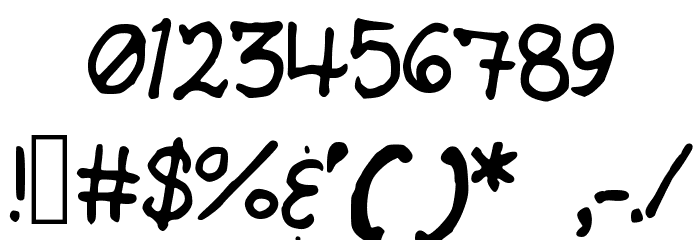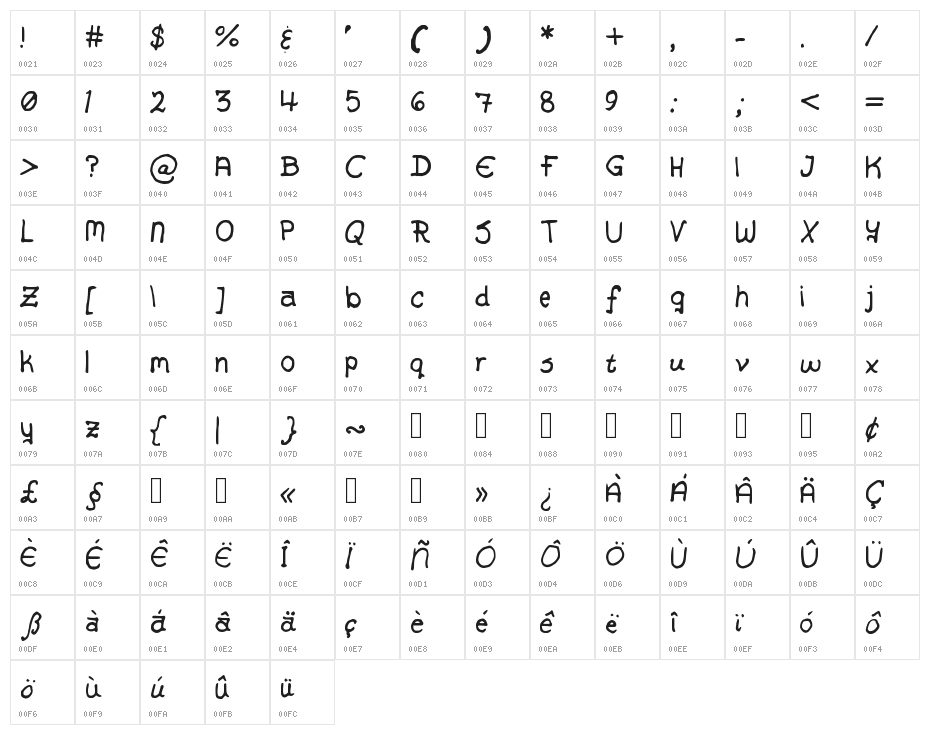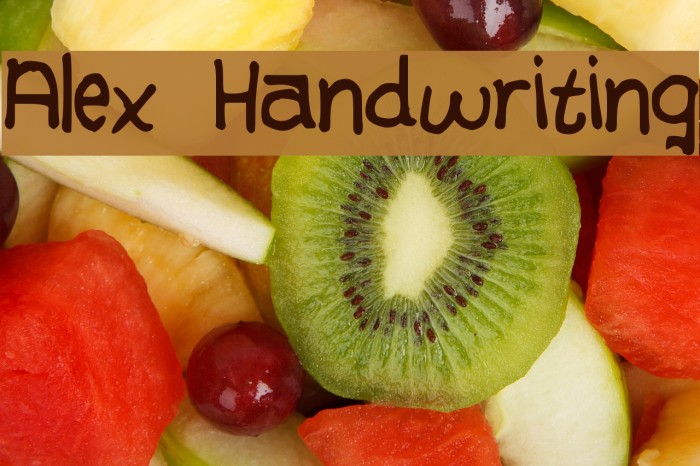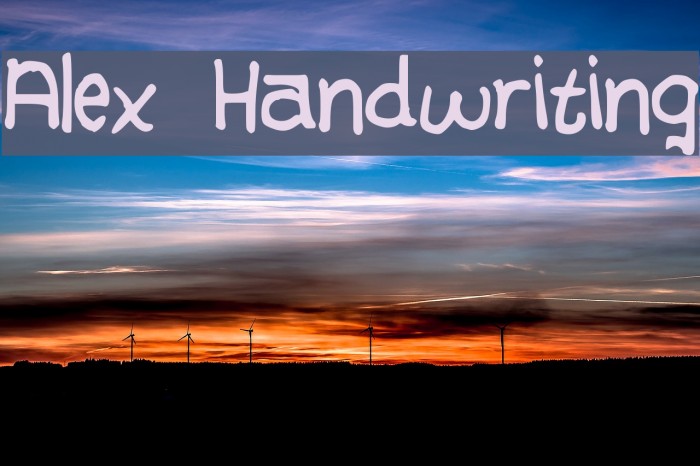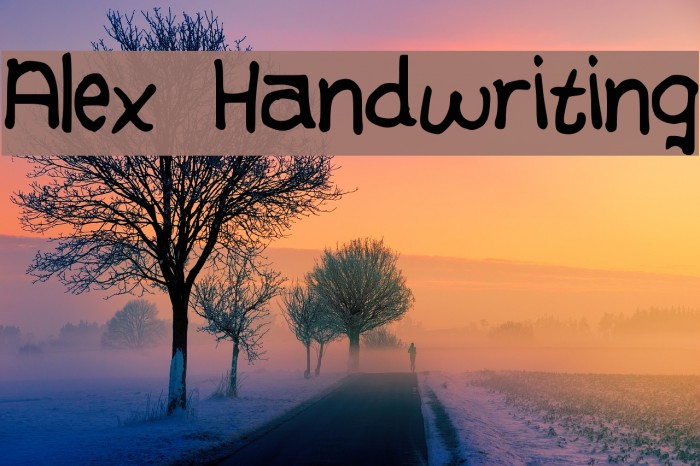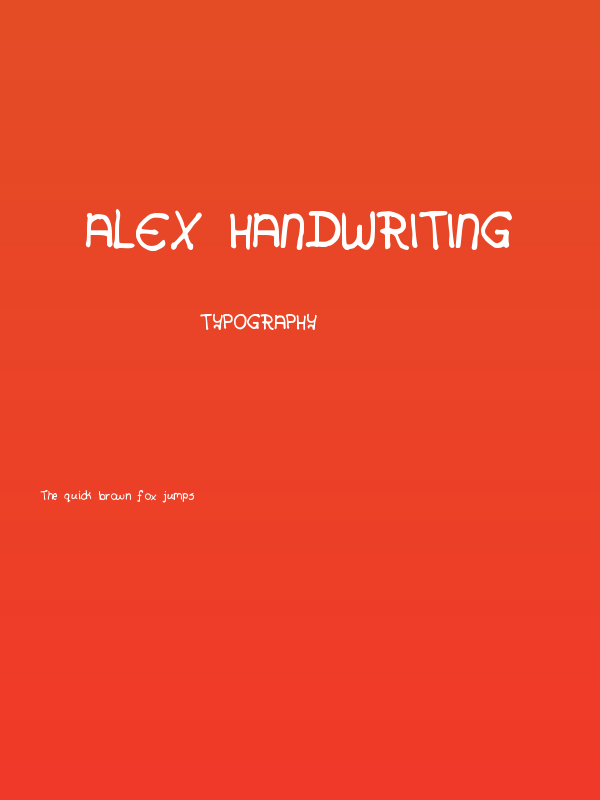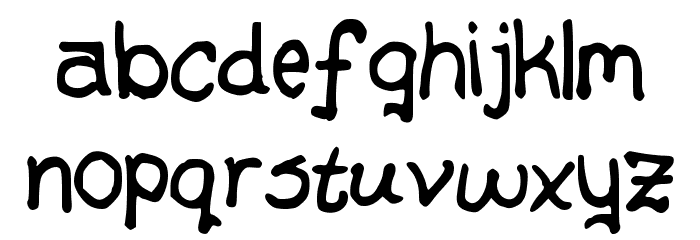
Alex Handwriting Font
Alex Handwriting Description
This font features a playful and casual handwritten style, characterized by its rounded and slightly irregular letterforms. The strokes are consistent in width, giving it a uniform appearance while maintaining a natural, hand-drawn feel. The uppercase letters are bold and prominent, while the lowercase letters are slightly more compact, adding to the font's charm. Numbers and special characters follow the same playful aesthetic, making this font versatile for various creative projects.
| Proposed Projects | Ideal for greeting cards, children's books, playful branding, and social media graphics. |